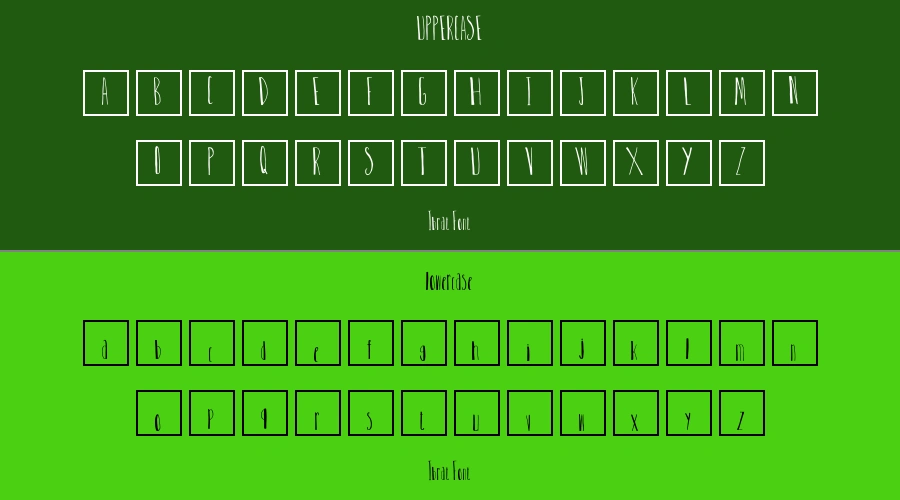
About Ibrat Font
Ibrat Font stands out for its distinctive combination of consistent rhythm and functionality. Ideal for environmental graphics, it provides the versatility and market appeal that professional projects demand. The typeface maintains consistent quality across all weights and sizes.
Key features include refined decorative elements and practical automatic fractions, enhancing typographic expression. In section headers applications, Ibrat Font demonstrates exceptional detail preservation. The proportion and historical references contribute to its distinctive character and professional appeal.